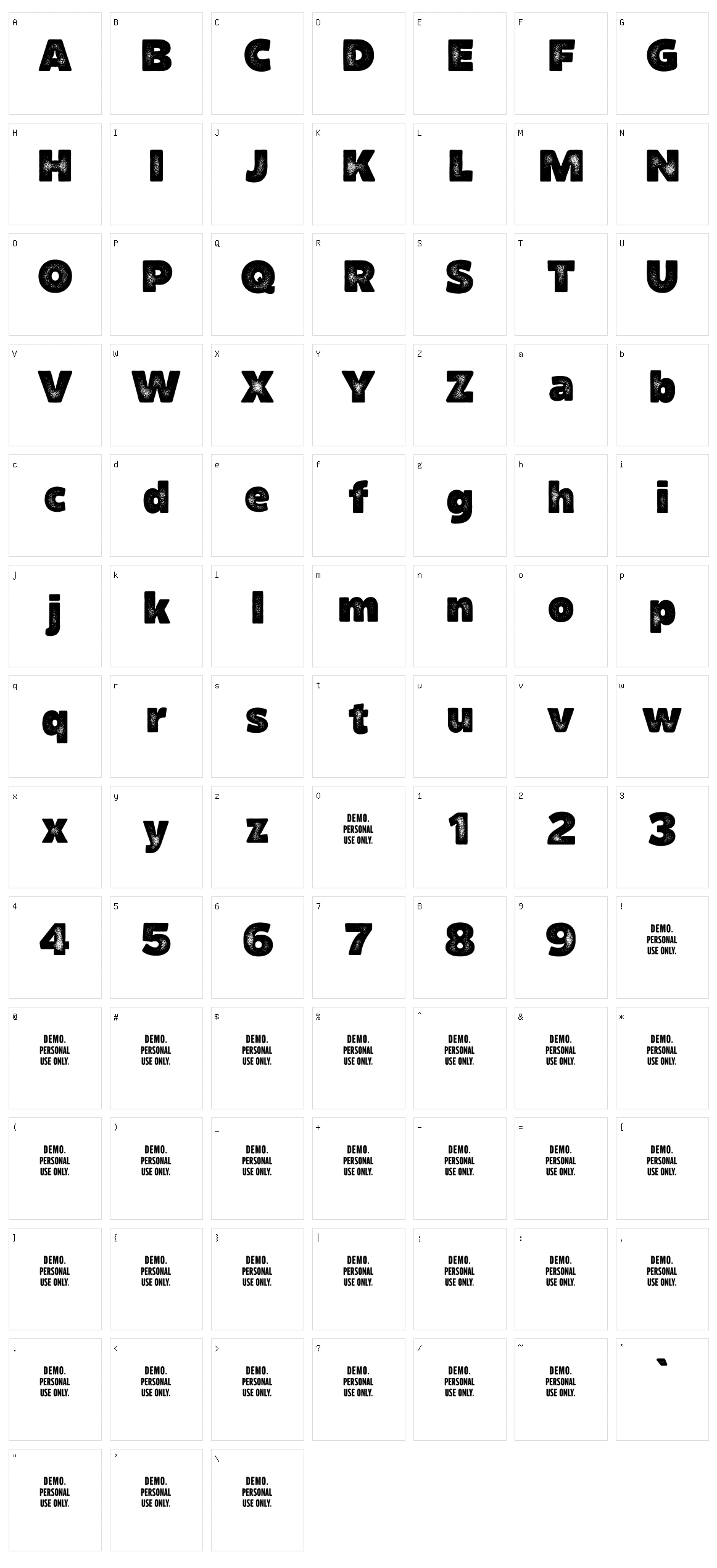
The free font Larrikin is carefully designed by headfirst, showcasing a thoughtful balance of creativity and usability and falls under the Eroded font style. When you download the ZIP file, it contains only 688.28 KB of font files, making it lightweight and quick to download. Please review the license details below to understand permitted usage and distribution rights. If license information is not available, we recommend using this font for personal projects only or contacting the author directly for commercial usage permissions.